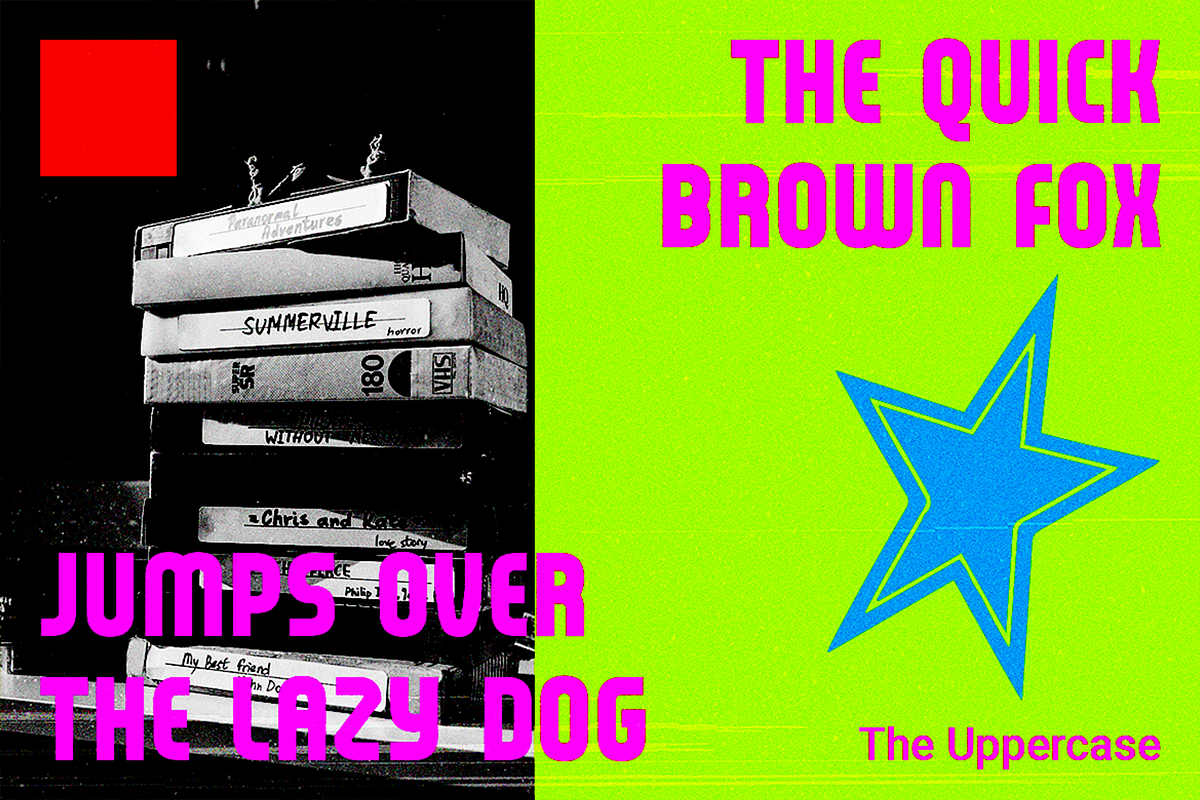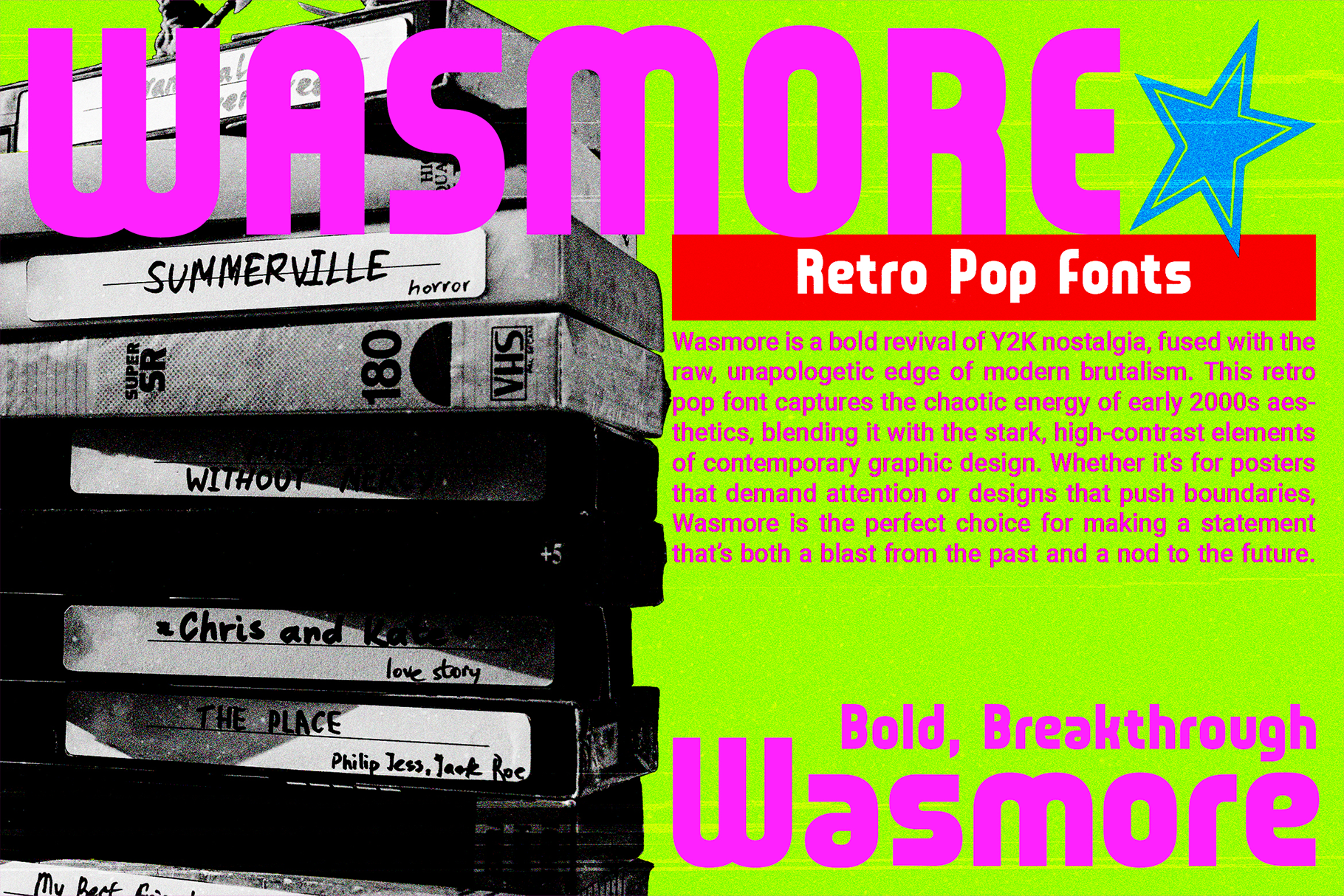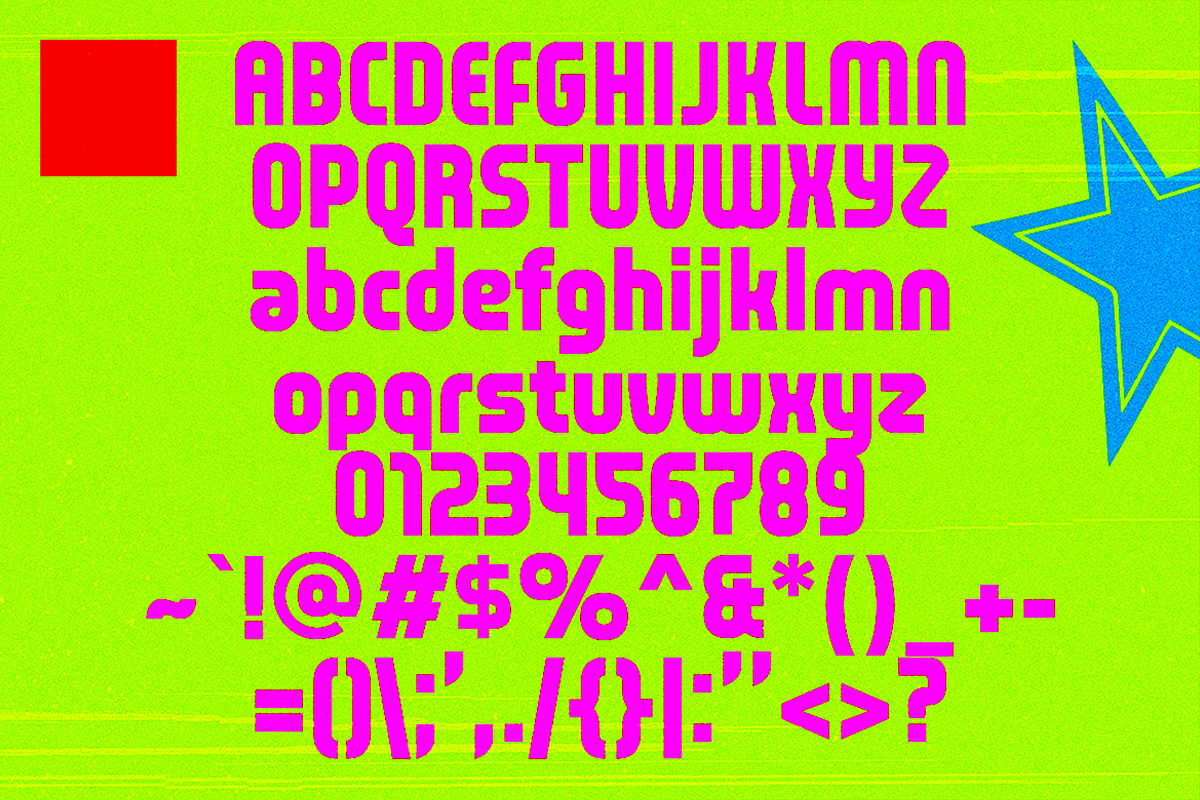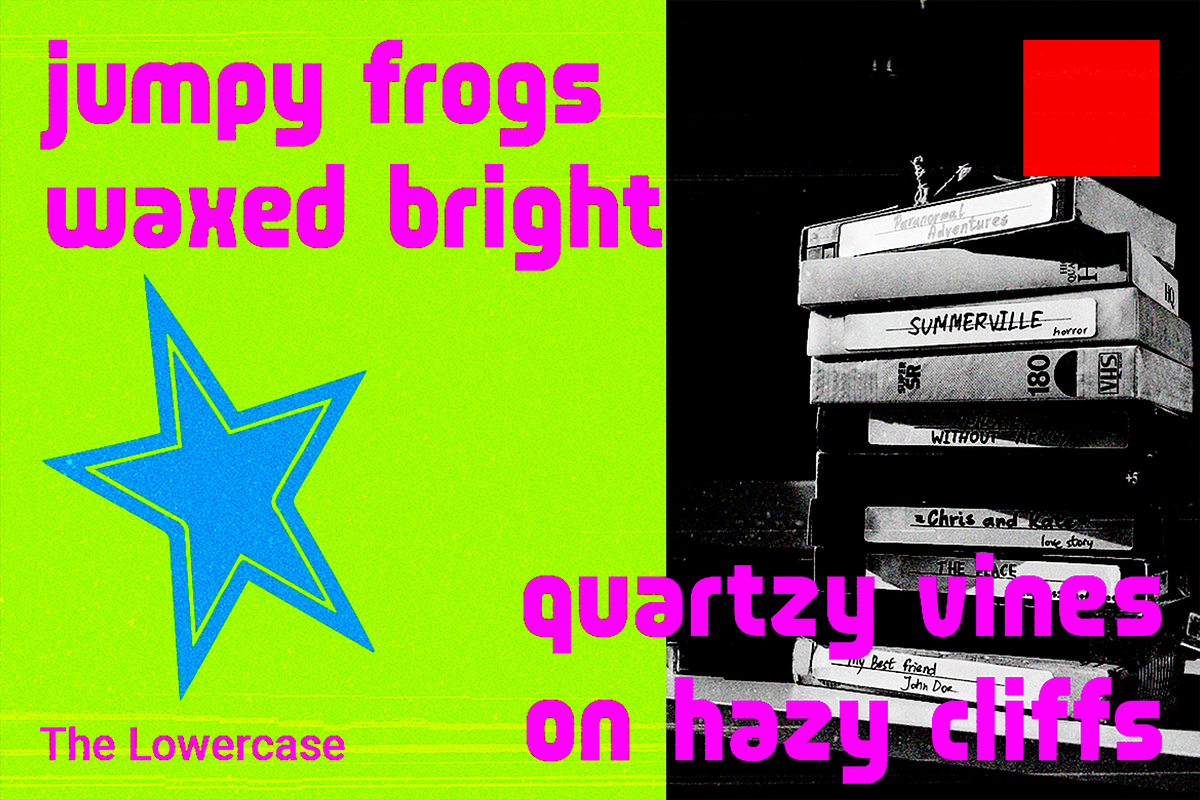
Wasmore - Retro Pop Fonts
Remember the wild energy of Y2K? When posters popped, magazines dazzled, and TV visuals were a total vibe? Meet Wasmore, the font that brings all that retro fun into your modern designs. Inspired by the bold, colorful, and downright unforgettable graphics of the 2000s, Wasmore is your ticket to reliving the era when everything was just a bit extra.
Perfect for posters, branding, and anything that needs a splash of playful nostalgia, this font is here to make your work stand out and shout, "Let's have some fun!"